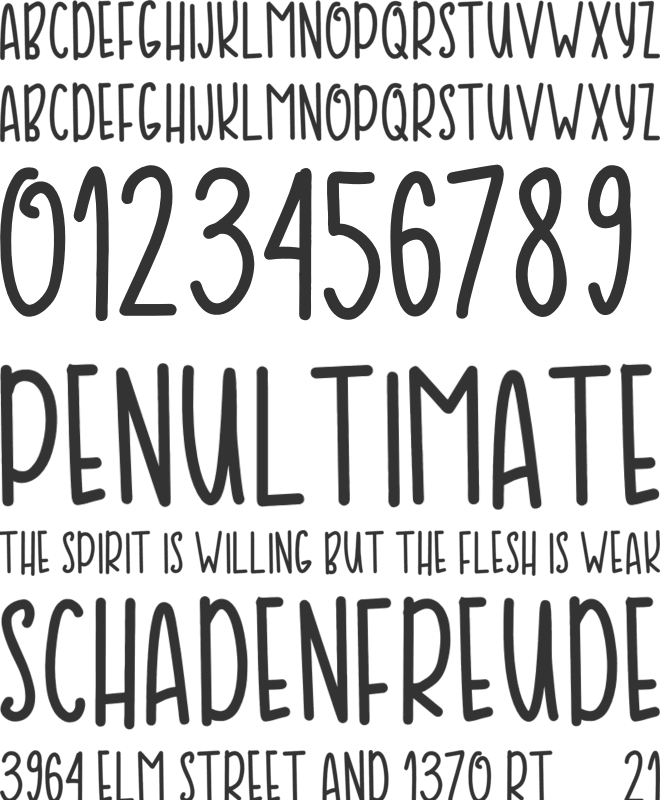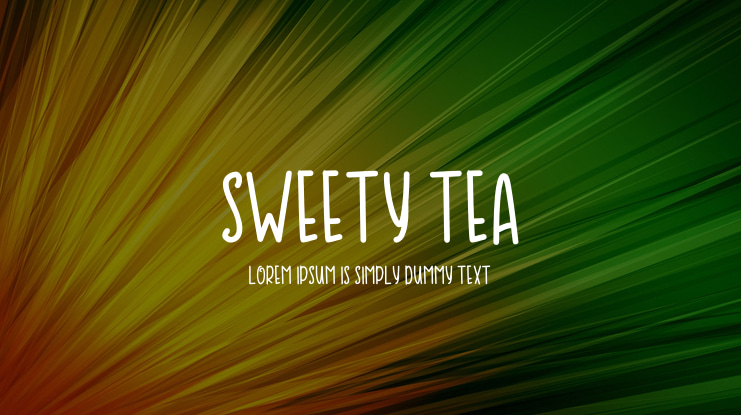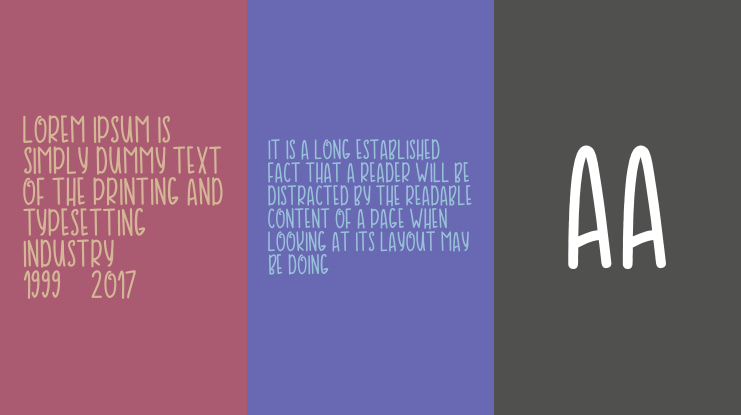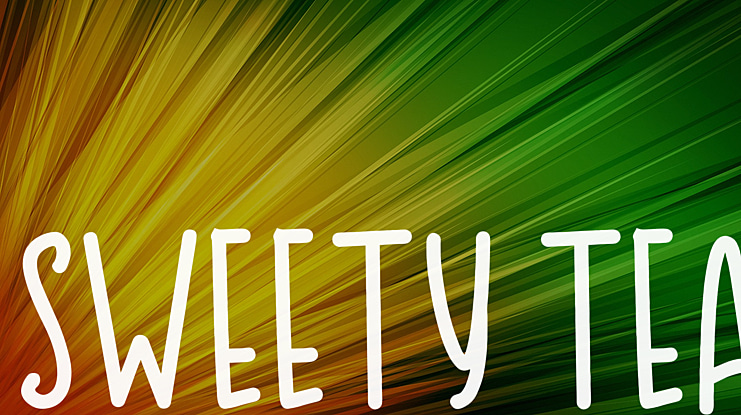
SWEETY TEA Font
Sweety Tea is a fun display typeface. It will lift your design and add a cheeky touch to each of your creations. Use this font for your designs and explore its endless possibilities.